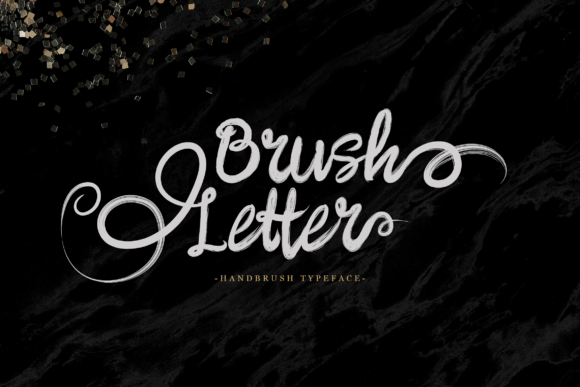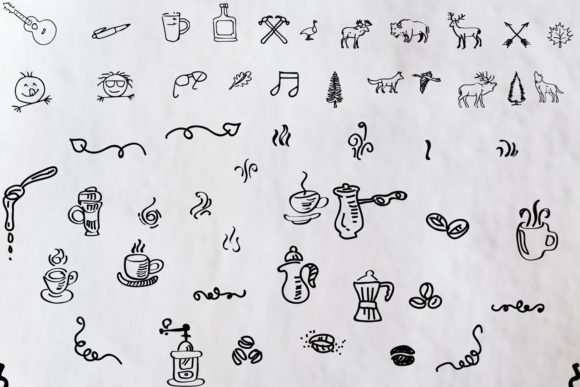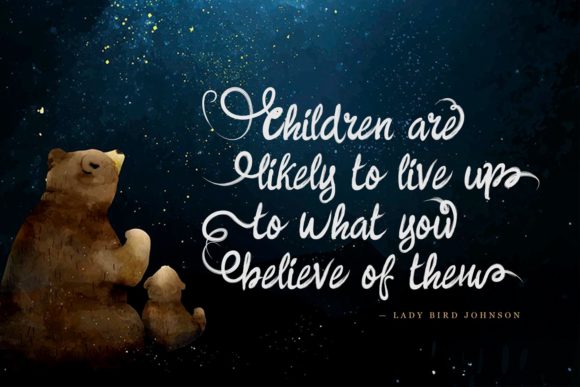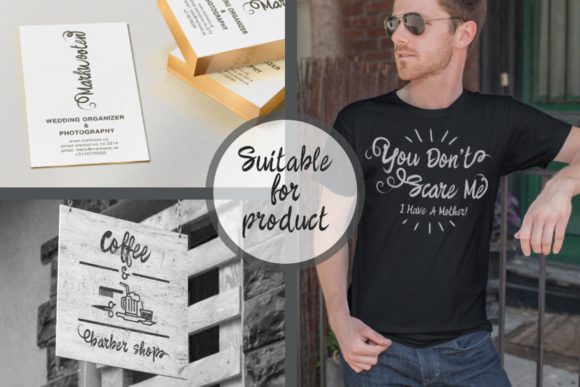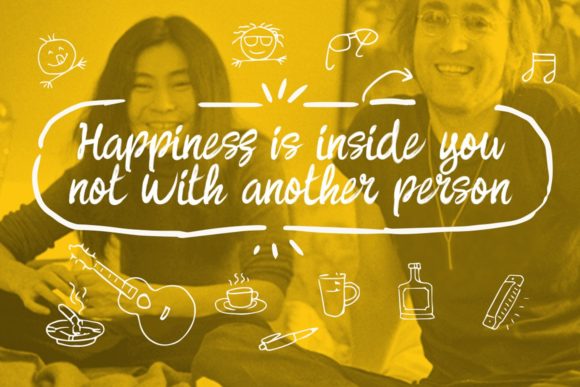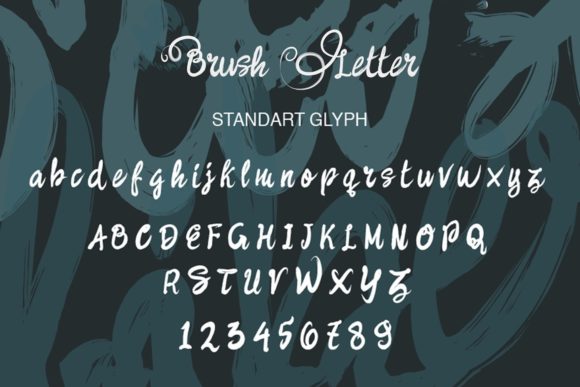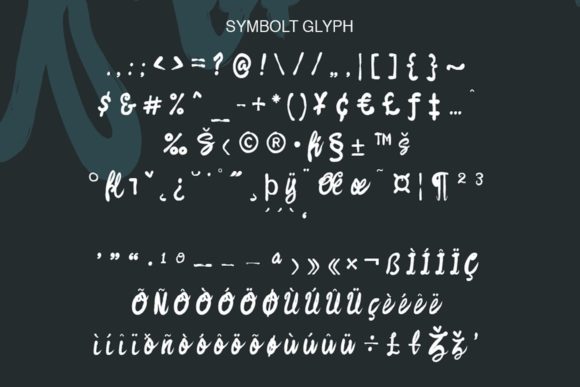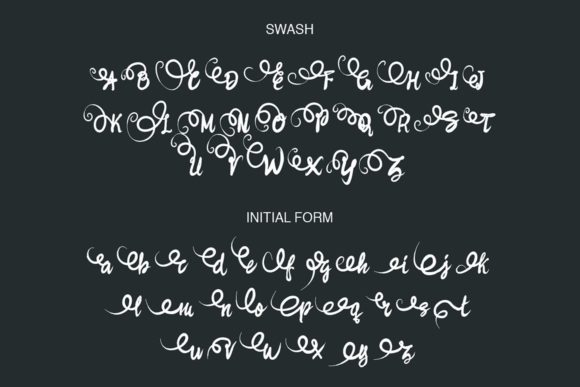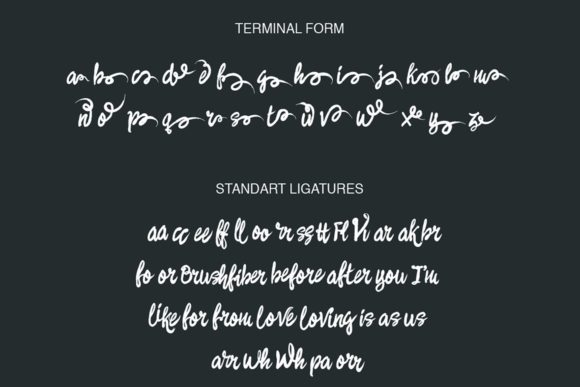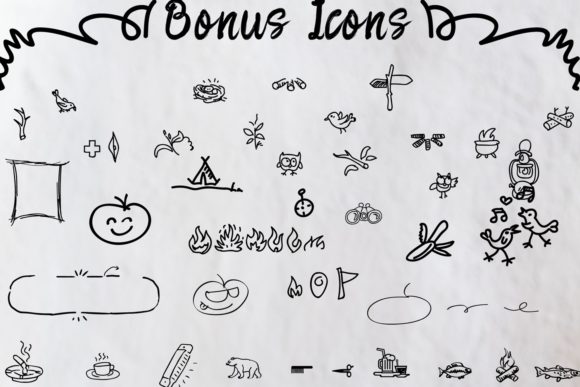
Brush Letter Font
About Brush Letter Font
Brush Letter is an incredibly distinct, delicate and timeless handwritten font. It looks stunning on wedding invitations, thank you cards, quotes, greeting cards, logos, business cards and every other design which needs a handwritten touch. This font is PUA encoded which means you can access all of the glyphs and swashes with ease! It features a varying baseline, smooth lines, gorgeous glyphs and stunning alternates.